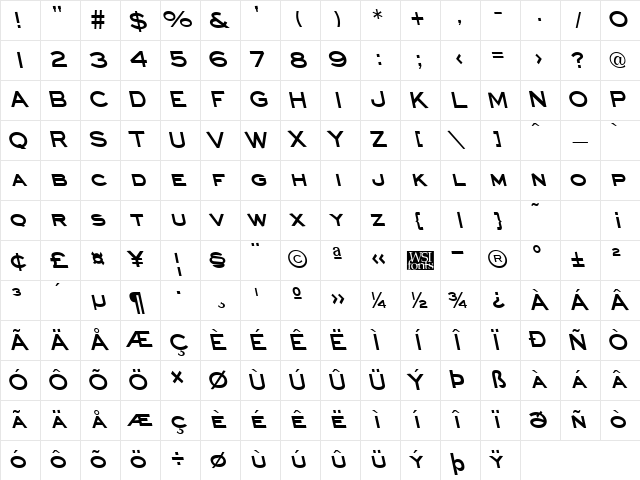
EyechartBackslant Bold Free Font
Complete EyechartBackslant Bold glyph index. Displaying only characters natively supported by EyechartBackslant Bold font.
Design Context for EyechartBackslant
EyechartBackslant is a composed and adaptable typeface that performs quietly and consistently across a wide range of design contexts. Its bold stroke weight gives it real presence on the page.